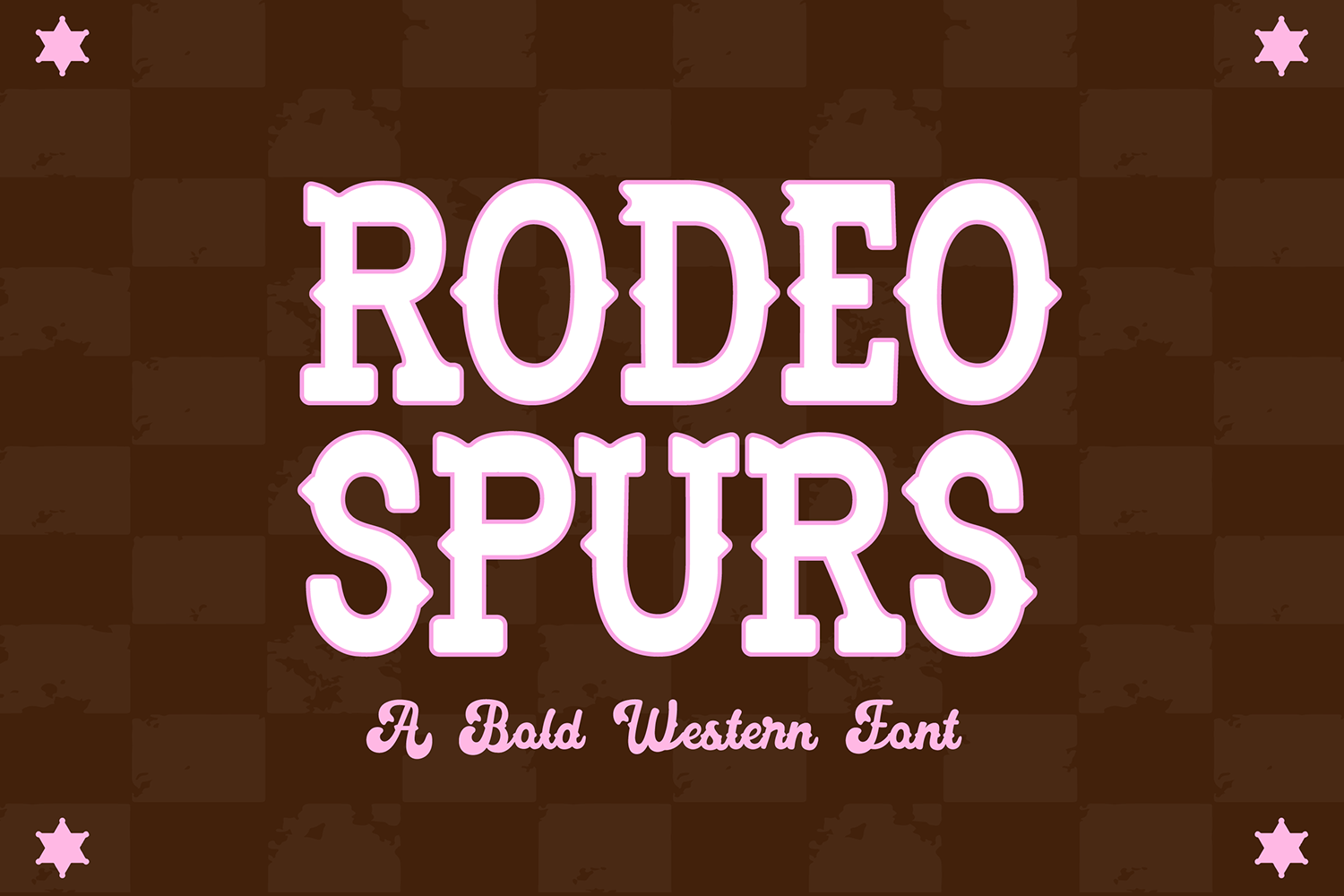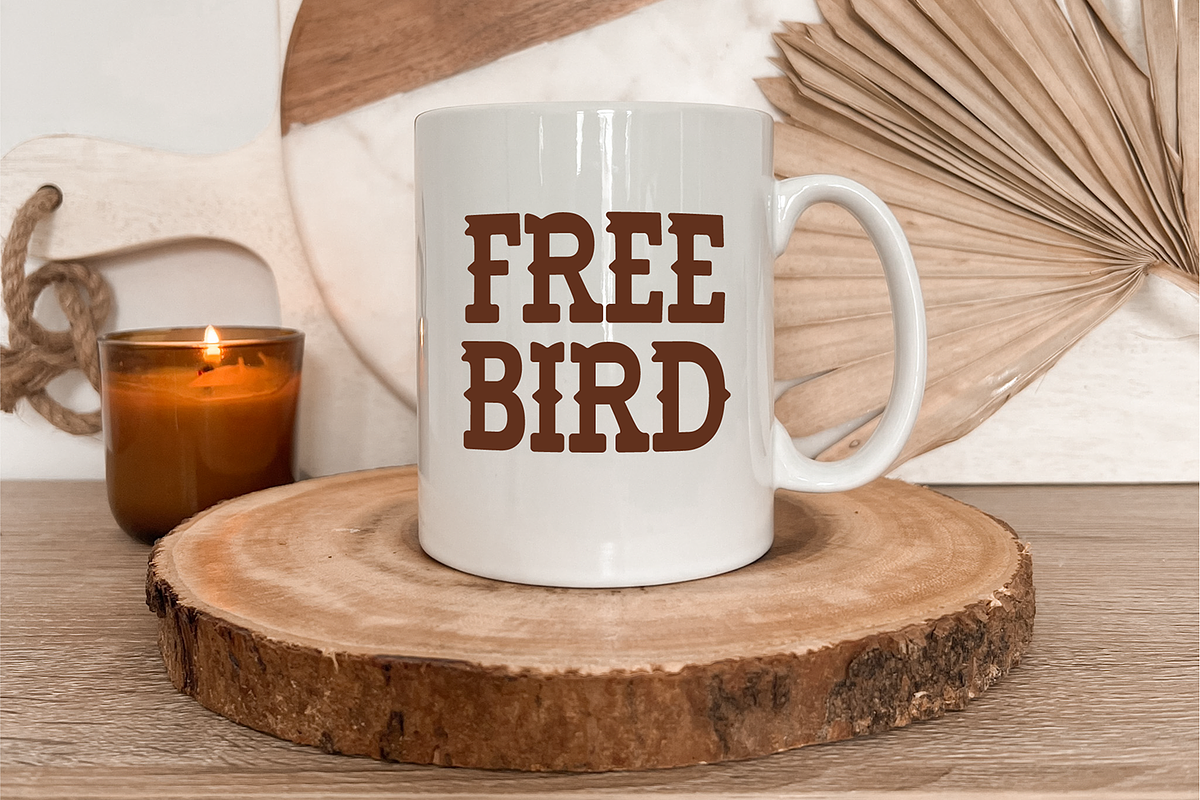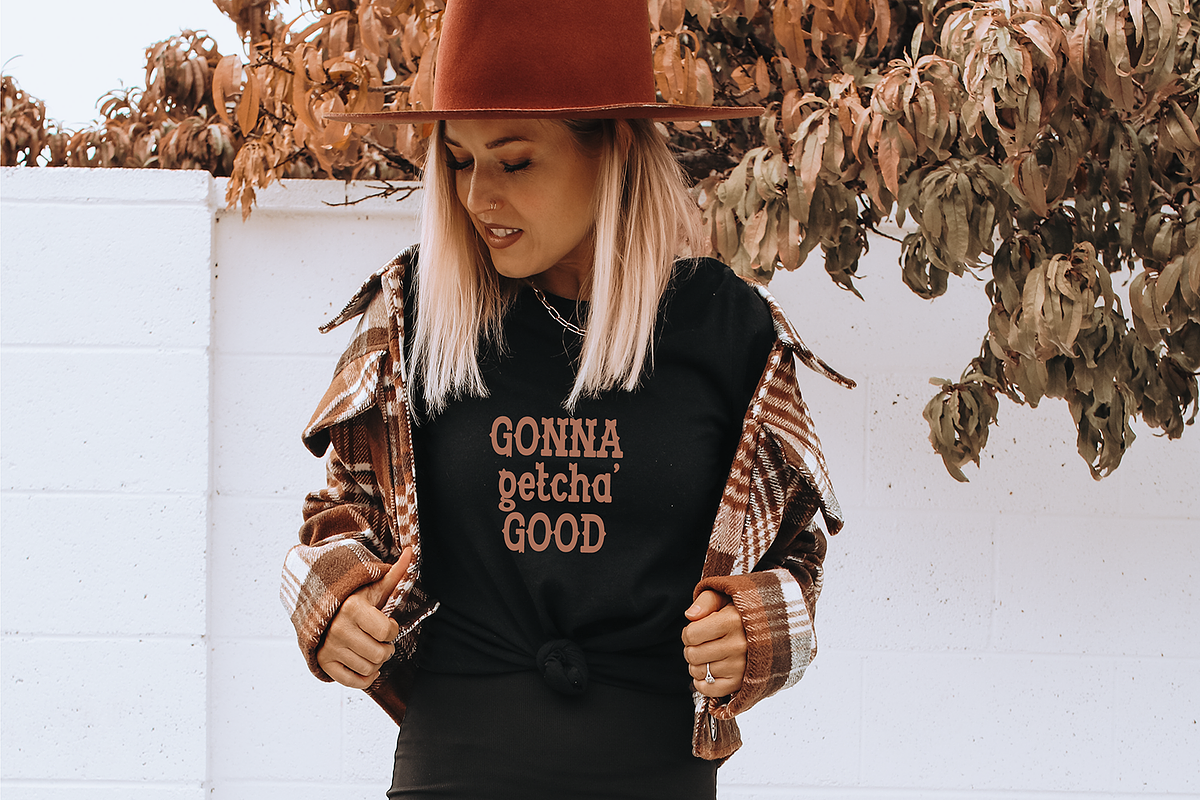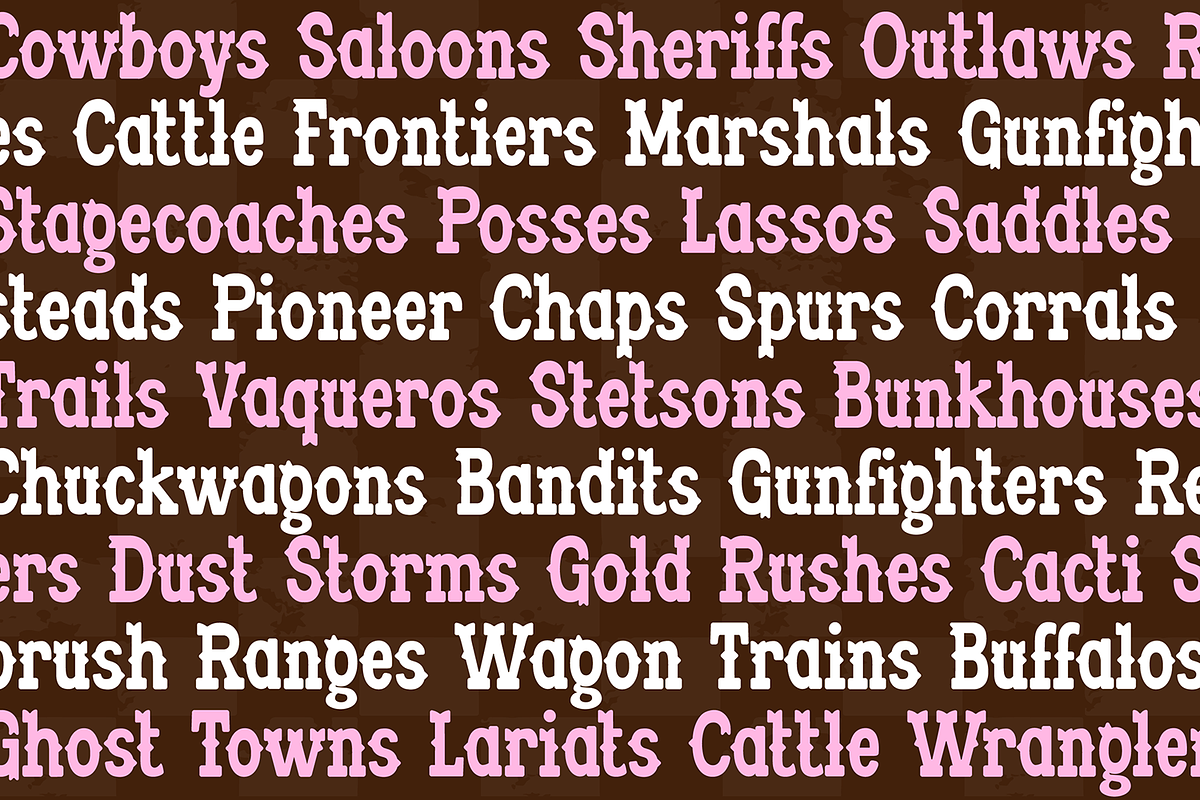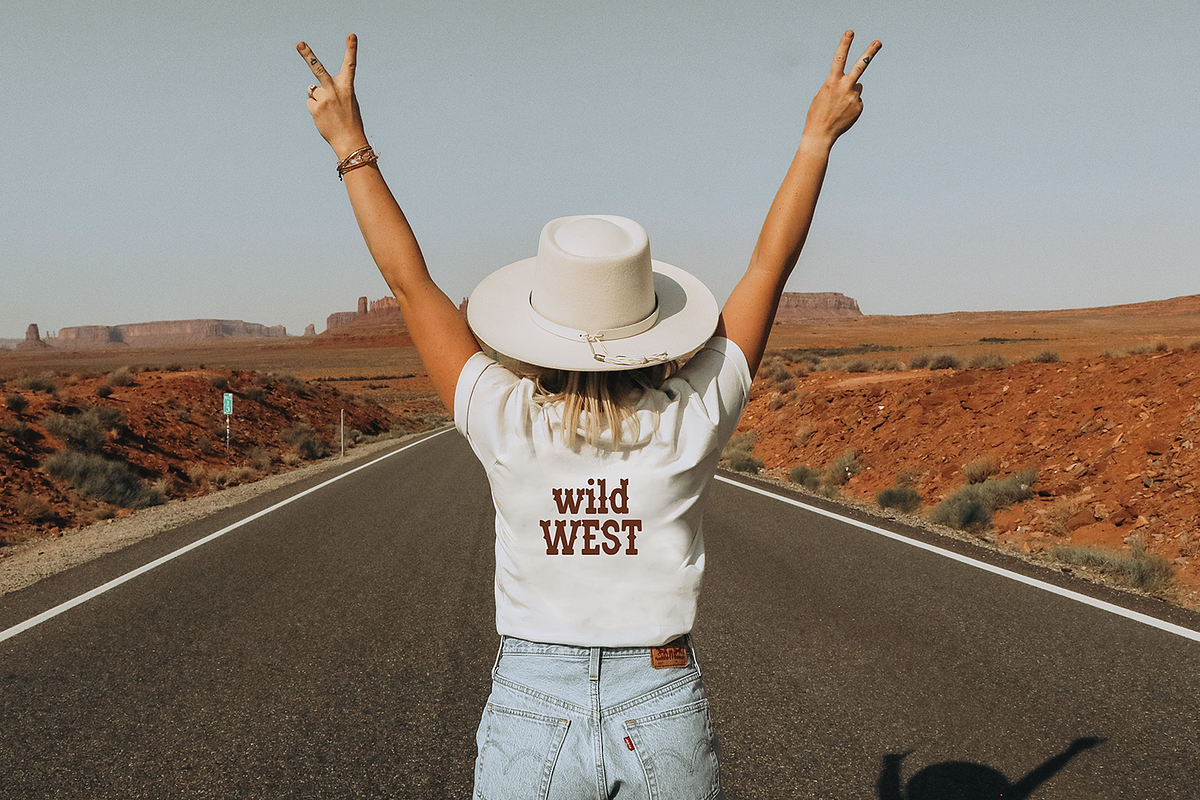
RODEO SPURS Fancy Cute Western Font
"Rodeo Spurs" a fancy western font.
Multilingual support.
This font is a bold display font that is perfect for trendy or crafty projects. Use it for branding, crafts for decor, invitations, and more! Upper and lowercase glyphs, numbers, punctuation marks, and intl characters.